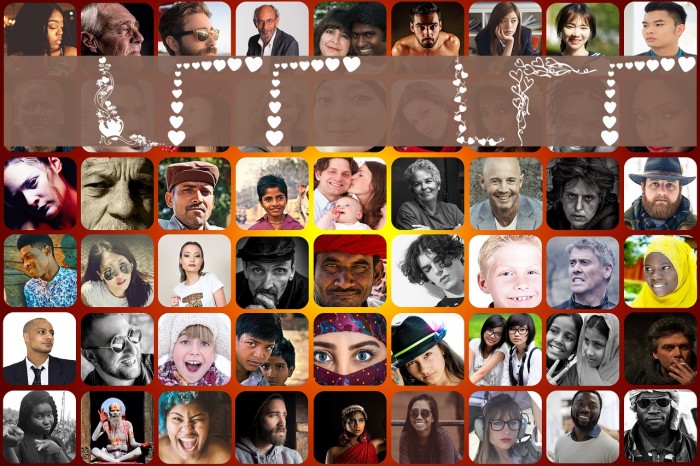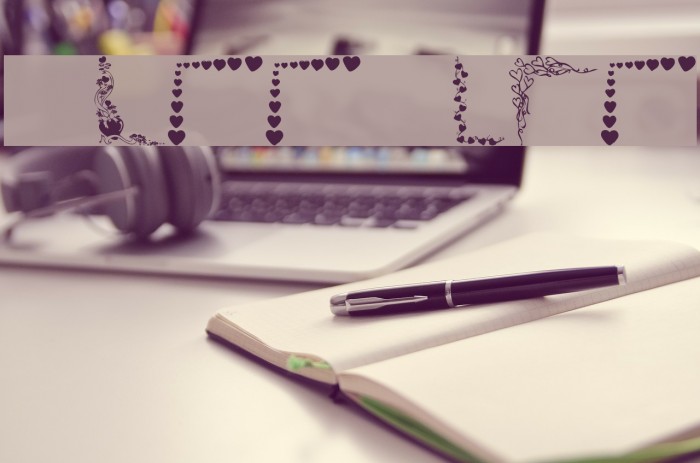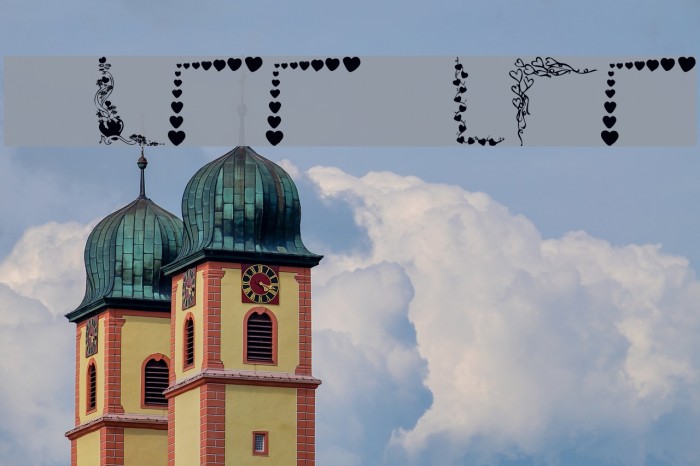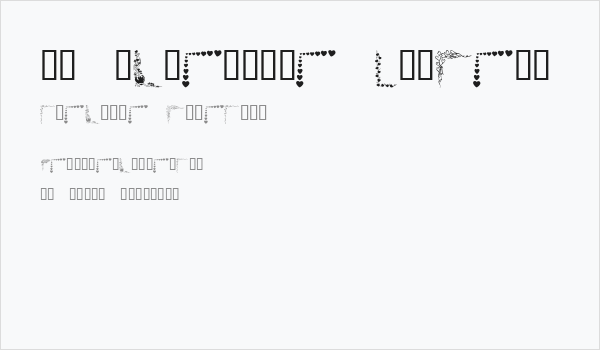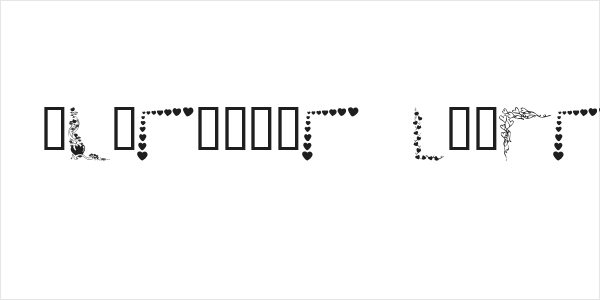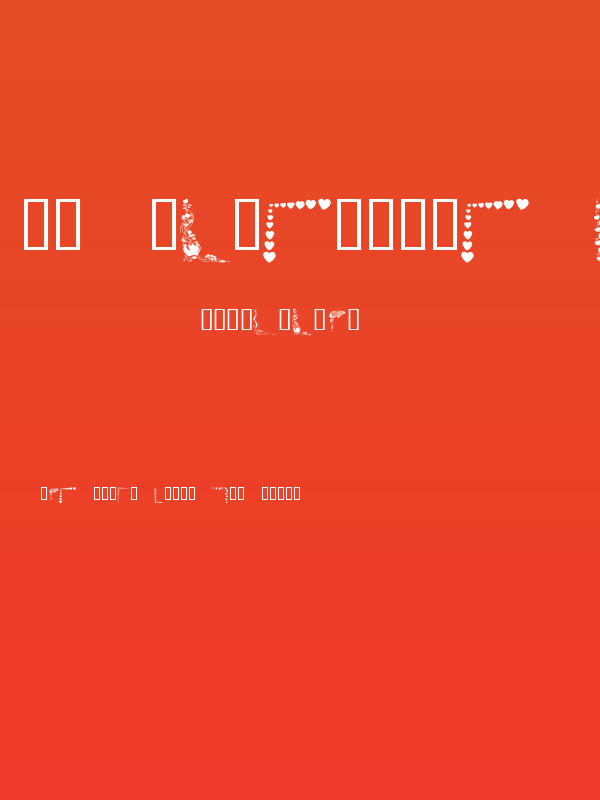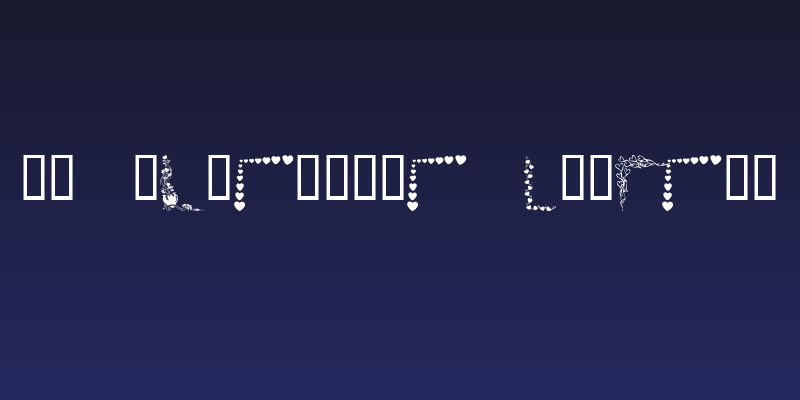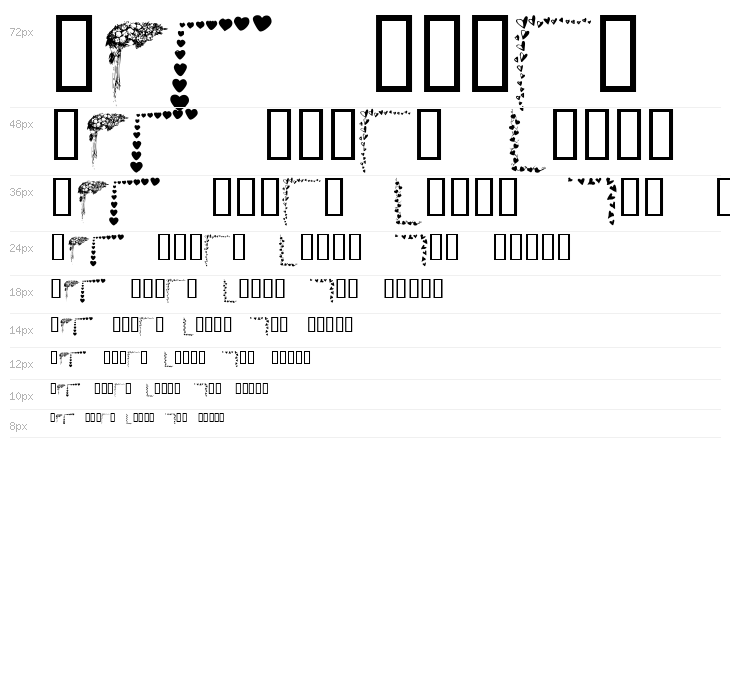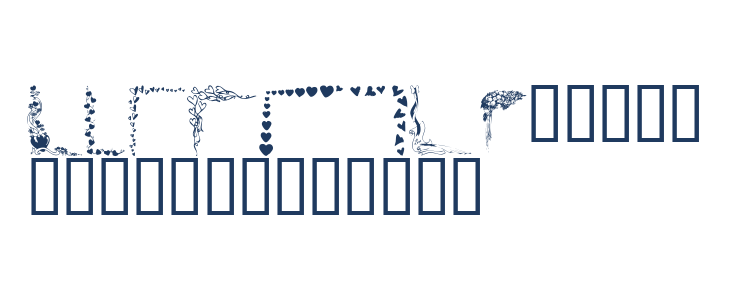
KR Valentine Borders Font
KR Valentine Borders Description
This is not a traditional font but rather a collection of decorative border elements with a romantic theme. The designs feature intricate floral patterns, heart shapes, and elegant flourishes, ideal for adding a touch of elegance and romance to any project. These elements can be used to create frames or borders around text or images, enhancing the visual appeal with their detailed and artistic style.
| Use Case | Borders, Frames, Decorative elements |
| Proposed Projects | Ideal for wedding invitations, Valentine's Day cards, romantic event flyers, and decorative scrapbooking. |